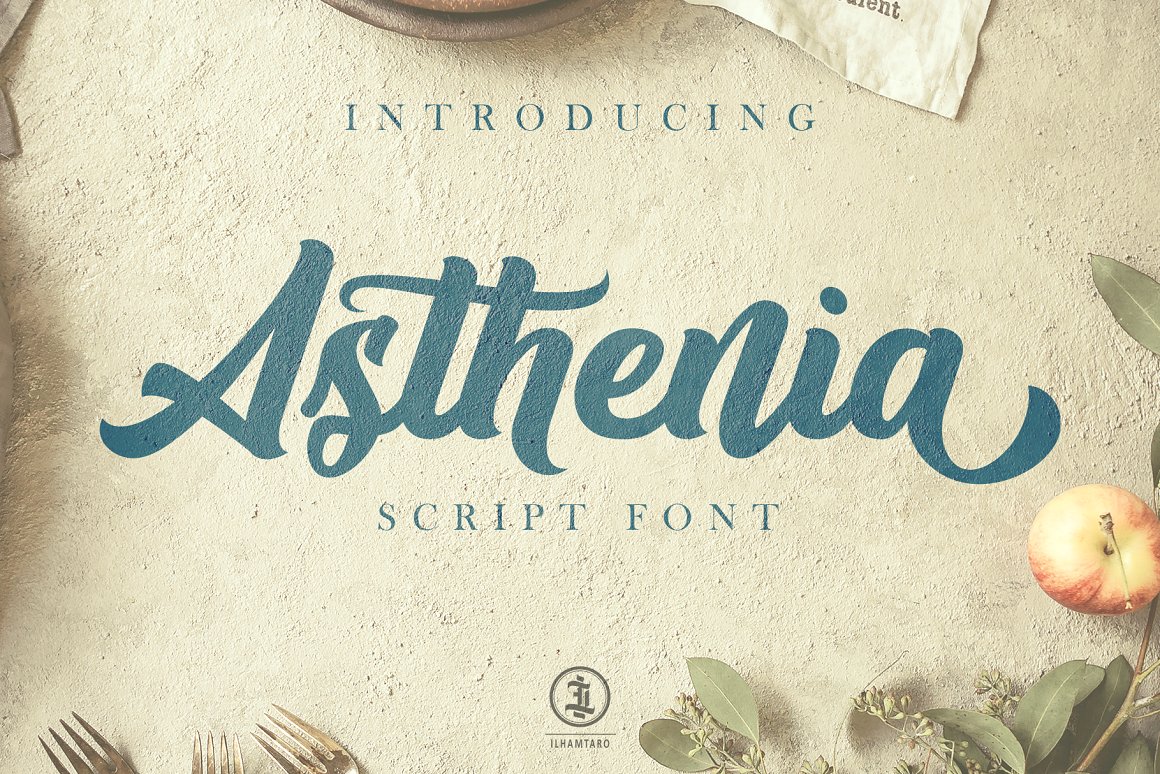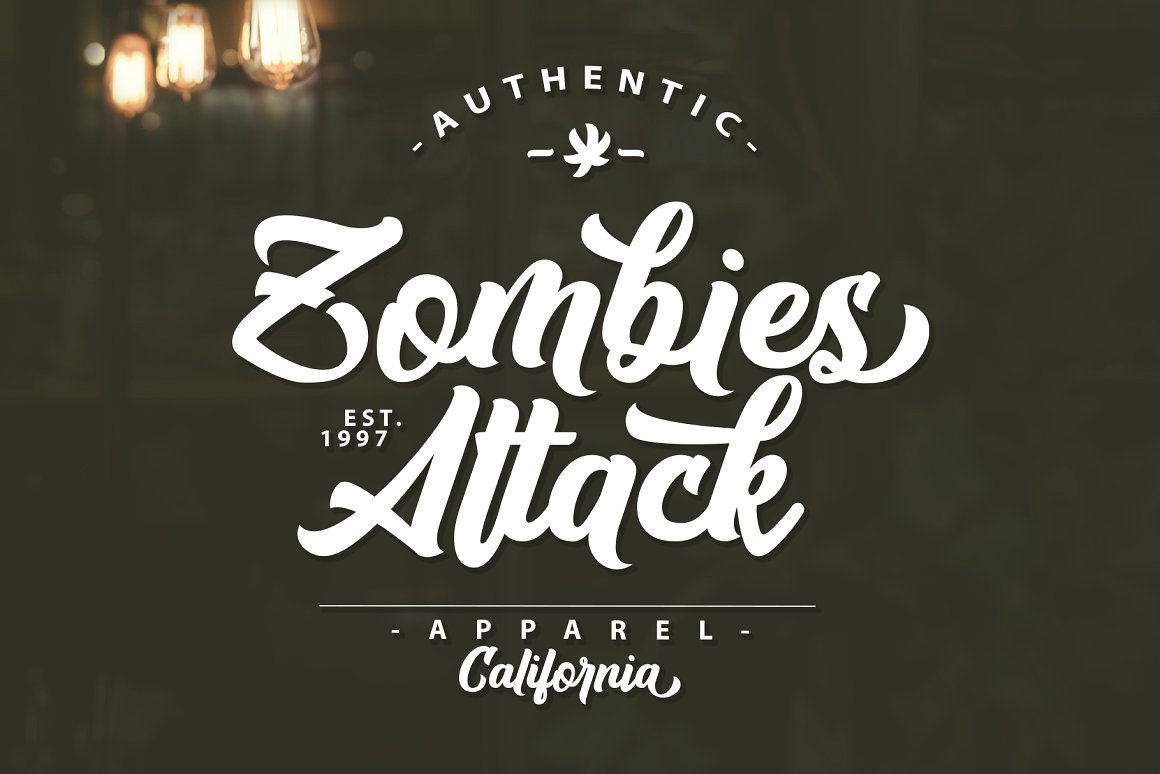
Asthenia Font
Asthenia is a script font with 420+ glyph including uppercase, lowercase, numerals, punctuations, ligatures and a lot of alternate characters, so it can easily customized to create logotype, poster, flyer, t-shirt design, packaging, branding, merchandise and many other creative projects.
| Designer Name: | ilhamtaro |